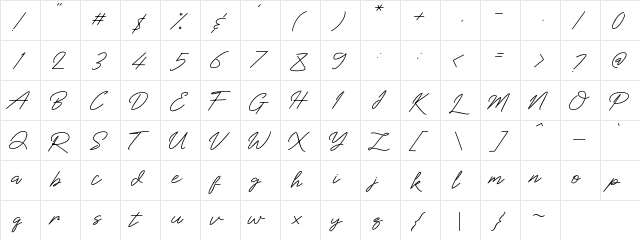
Baiklah Regular
Design Context for Baiklah Typeface
Baiklah is a composed and adaptable typeface that performs quietly and consistently across a wide range of design contexts.